Glyphs and ligatures: The Basics
What are glyphs and ligatures? They are both are essential to creating unique and realistic handwriting typefaces. Let's take a look.
What is a glyph?
Glyphs are the individual characters or symbols that make up a typeface. They can include letters, numbers, and punctuation marks, as well as special characters like emojis and symbols. In certain fonts, you may have the option to select a glyph variant from a set of alternate glyphs. This allows you to customise and make your designs more unique.
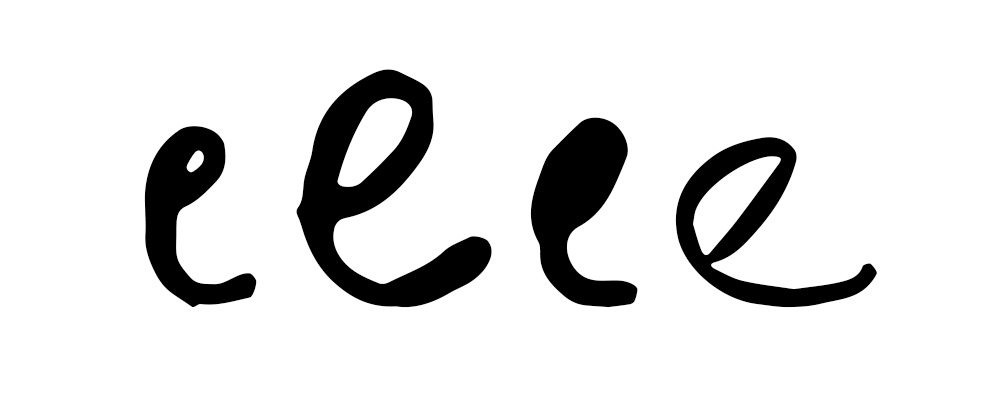
What is a ligature?
A ligature occurs when two or more characters or 'elements' are combined as a single glyph, e.g. βeeβ, βstβ or even β:)β. Ligatures allow for more varied type, particularly in scripts or handwriting (such as doubled letters or linked letters in cursive). They can also be created to prevent letters from overlapping or colliding.
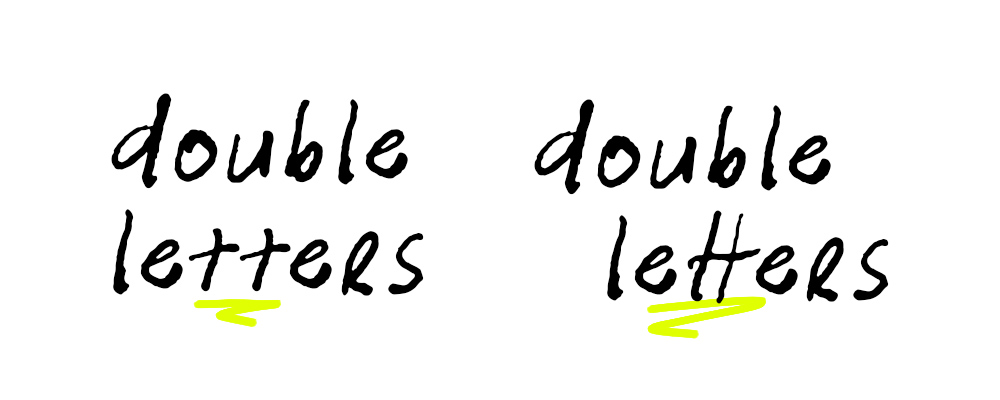
How to use glyphs and ligatures
Using glyphs in your designs: If a font has alternate glyphs included, you can select a character and replace it with an alternate version. Accessing these options will depend on the program you are using. For example, this is the glyphs menu in Photoshop.
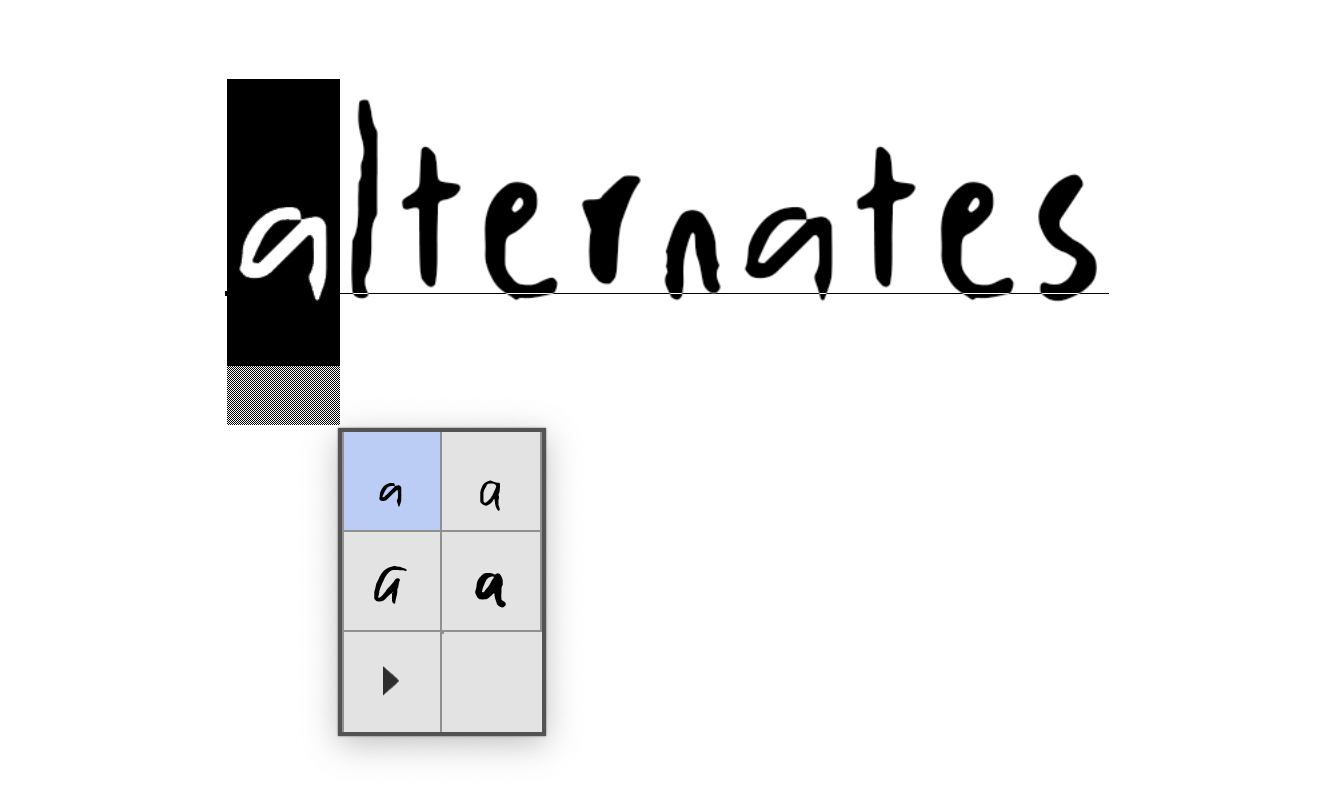
Using ligatures in your designs: Ligatures can be defined as either 'standard' or 'discretionary'. Standard ligatures are used in the font by default and are often created to either:
- replace a combination of letters that need visual tweaking (e.g. they collide or overlap), or
- improve the font visually (e.g. offer a more realistic representation of letters, especially in handwriting fonts).
Discretionary ligatures are not enabled in the font by default, and can be used (you guessed it)Β at your discretion. If your design program offers it, you can enable discretionary ligatures by default. They are often created to improve the visuals of the font and may include elements such as flourishes or embellishments.